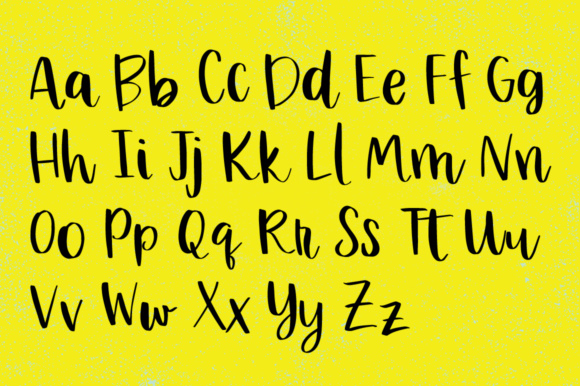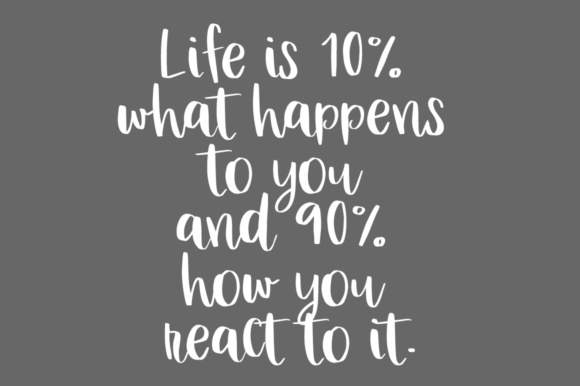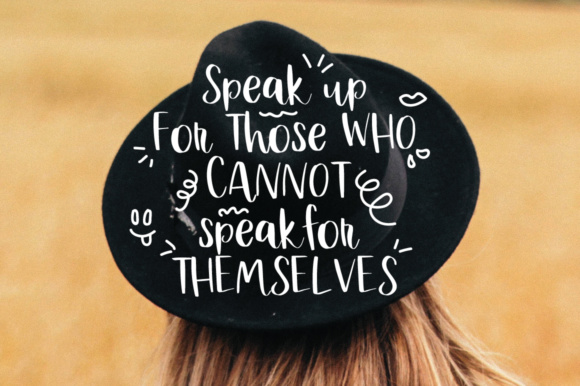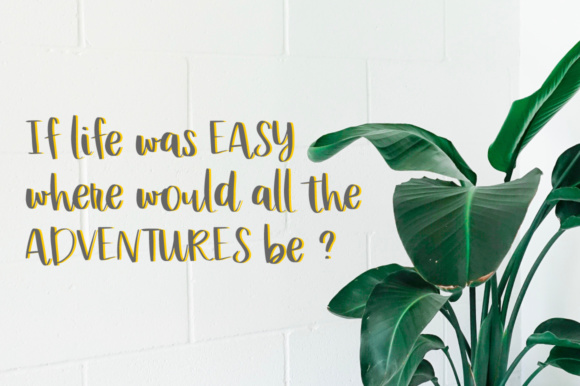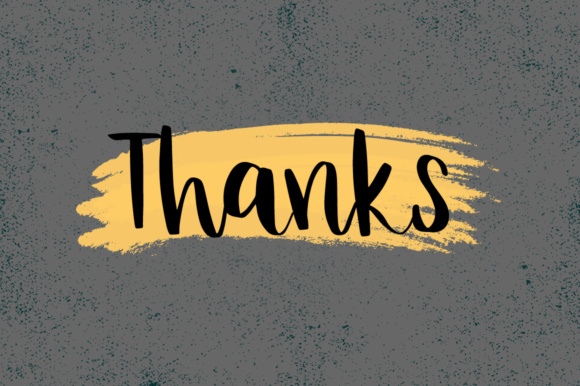
Lepota Font
About Lepota Font
The Lepota is a beautiful handwritten script font.
It can be used for various purposes such as wedding invitations, blogs, small businesses, book covers, and every other design that needs a striking typeface.